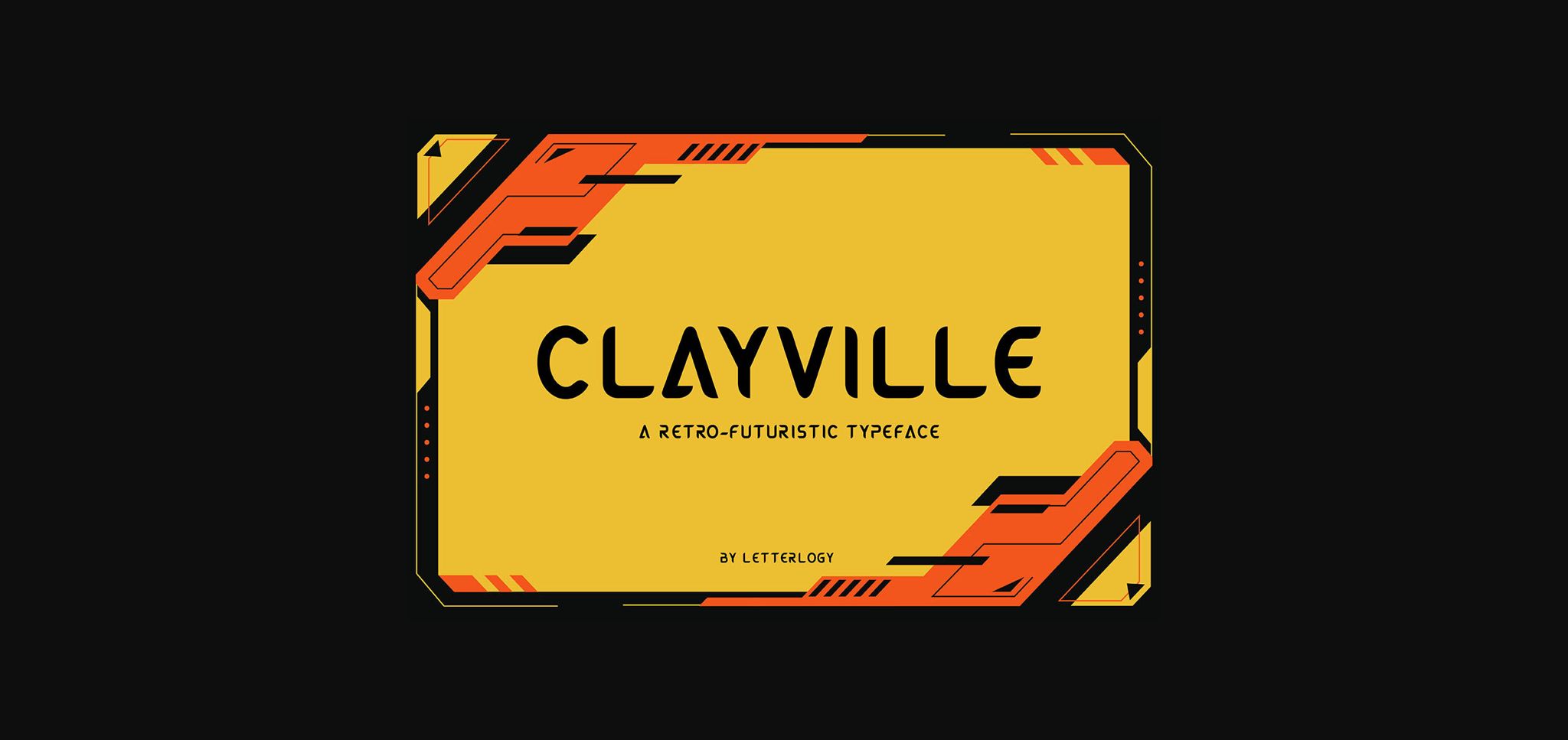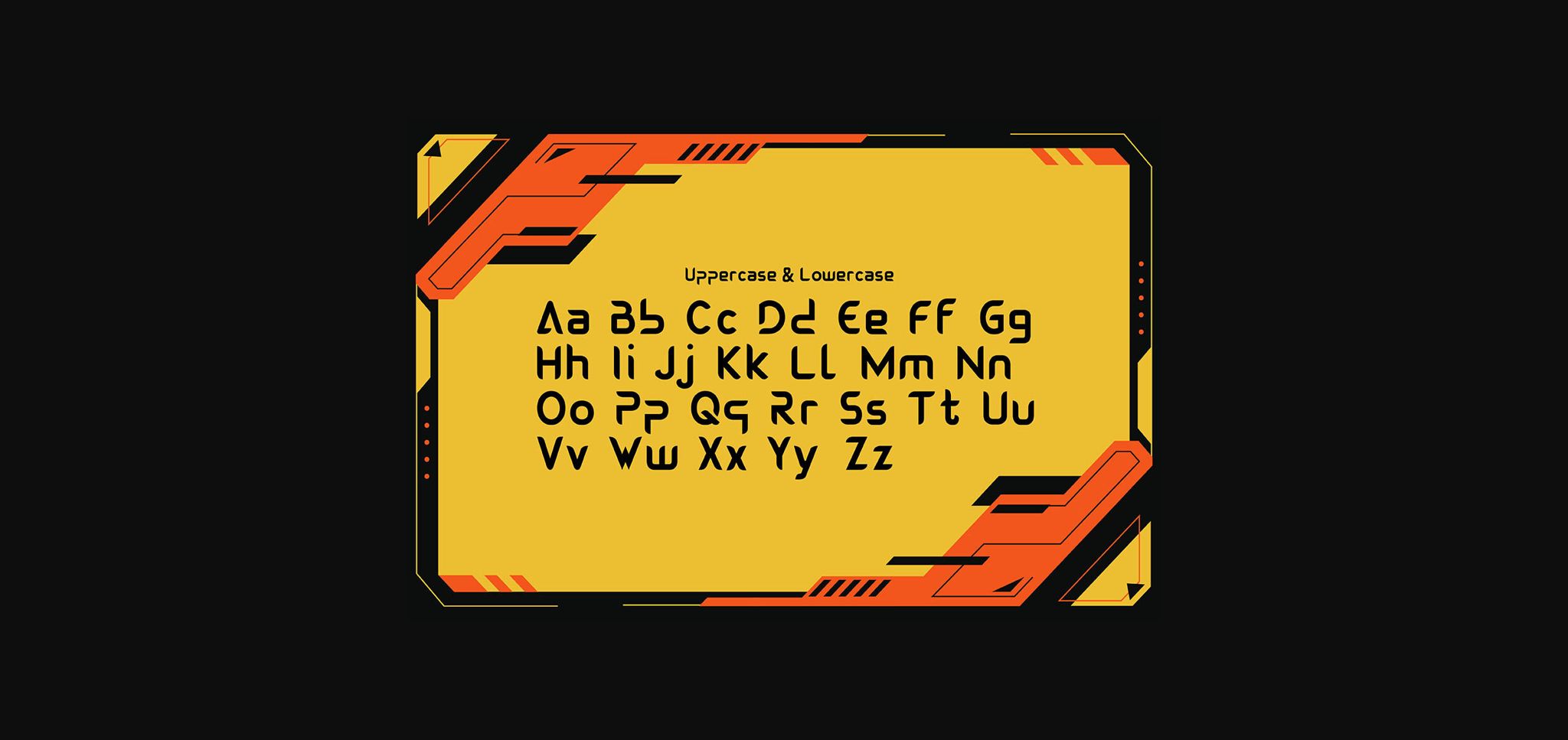
Clayville Font
About Clayville Font
CLAYVILLE is a retro-futuristic typeface that combines elements of classic, modern, and futuristic designs. Included within the products are OTF and TTF formats as well as a FREE cyberpunk-themed background.